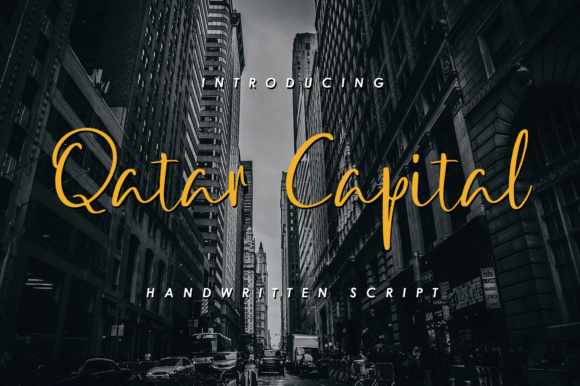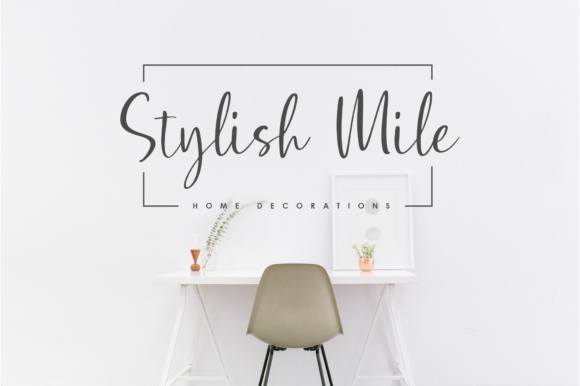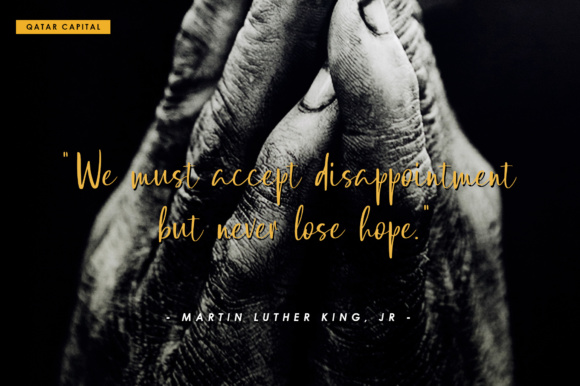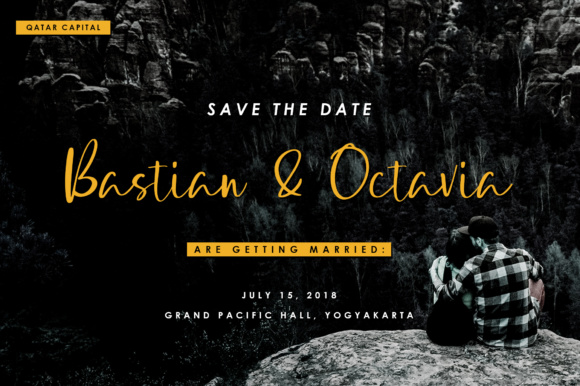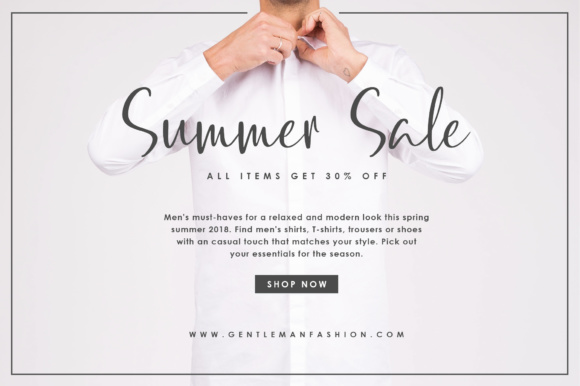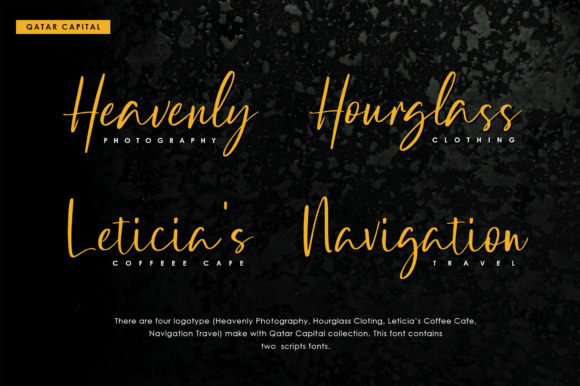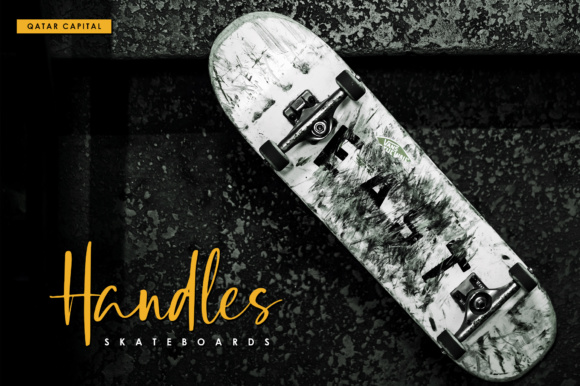
Qatar Capital Font
About Qatar Capital Font
Qatar Capital is a handwritten script font with a natural and authentic look. Every letter has been carefully crafted to give your design a realistic feel.
With it’s two styles, Qatar Capital is perfect for branding, logotypes, magazines, website headlines, packaging, and much more!